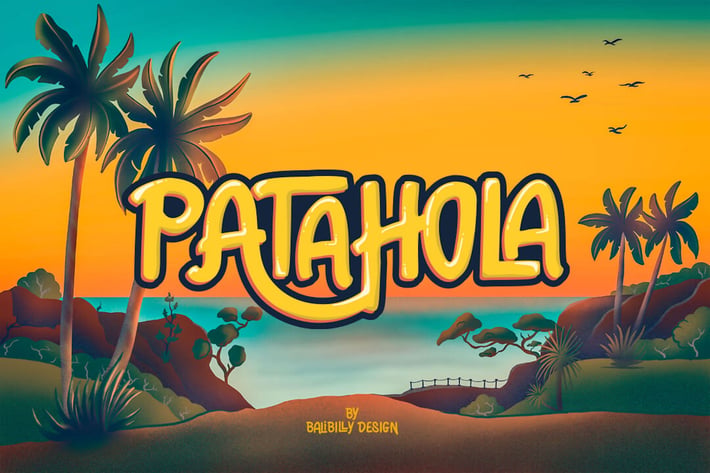
Patahola - A Playful Hand Drawn Display Fonts
Introducing Patahola - A Playful Hand Drawn Display Font
Patahola is a Playful Hand-drawn display sans serif font with 6 font family
regular,
italic,
thin,
thin-italic,
bold,
bold-italic.
This font is dedicated to creative people that need a display type with playful taste and unique text. It will elevate a wide range of design projects to the highest level. Strikingly versatile for packaging, branding logotype, logo badges, digital lettering arts, apparel, poster, website layout, magazine, card, signs, advertising design, and any design needs.
CHARACTER DETAILS
Upper case with alternates
Lower case
Open type feature
Double words ligatures
Three words ligatures
Numeral